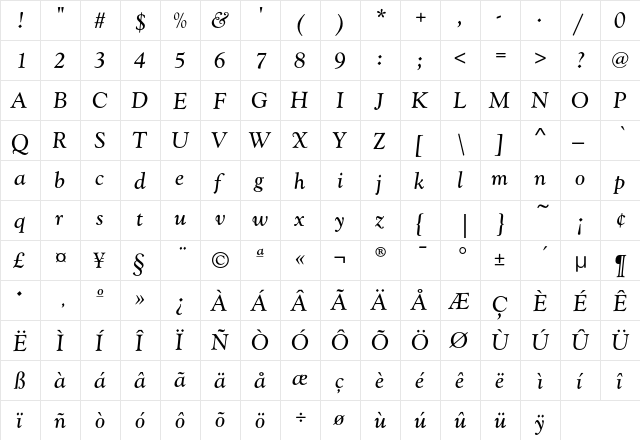
GoudyCatalogueEF Italic Font Preview
GoudyCatalogueEF Italic
GoudyCatalogueEF Italic Font Details
Design Context for GoudyCatalogueEF Typeface
GoudyCatalogueEF is a composed and adaptable typeface that performs quietly and consistently across a wide range of design contexts. The slanted form adds forward momentum and visual energy.
Pro Tip: Try GoudyCatalogueEF for annotation and caption copy alongside an upright companion — the contrast in angle creates a dynamic but ordered typographic system.